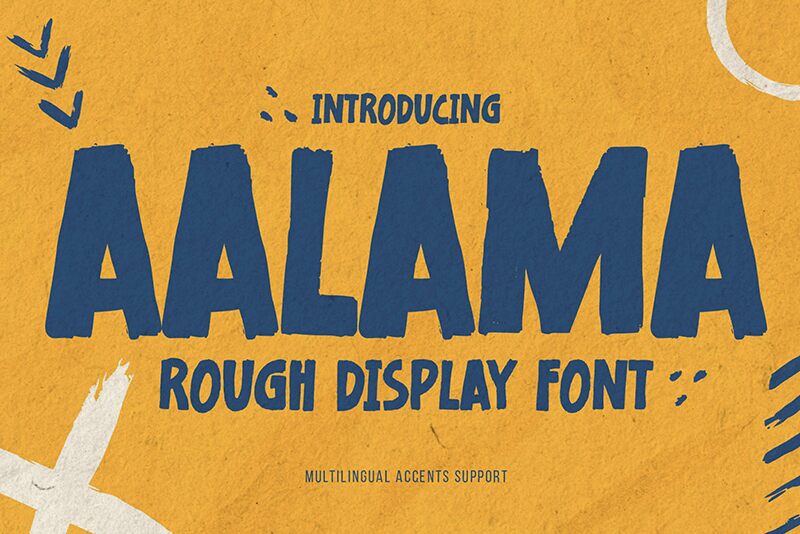
Aalama
Aalama font designed by Gassstype is a bold, display font of condensed width made for graphic projects with a strong visual impact. It charms your composition with both its simplicity and modern feel and makes for an excellent choice for contemporary applications in branding and advertising. Despite all that it has to show, this friendly font is free to download.
Some logical applications of Aalama include post templates, T-shirts, smiley face handpainted coffee mugs, tags, badges, promo flier titles, advertising headings (on papers or websites), games graphics features (like names), book covers on Terry Pratchett’s recommendations list.